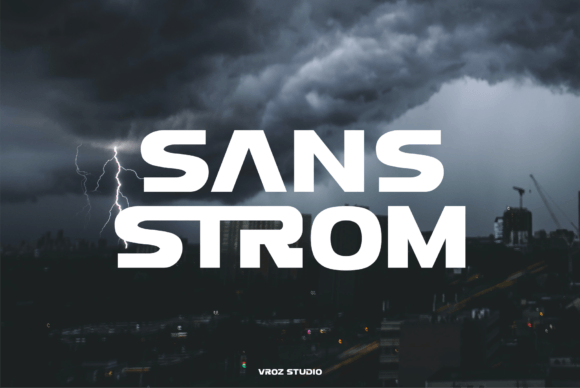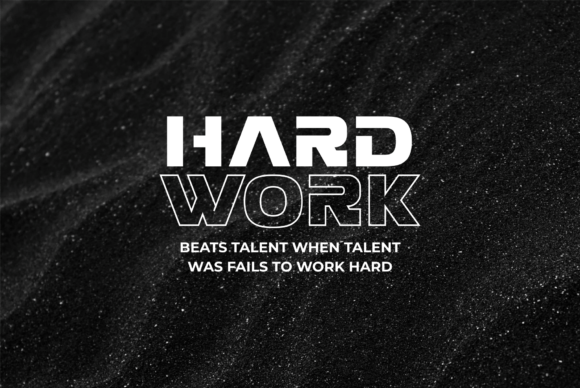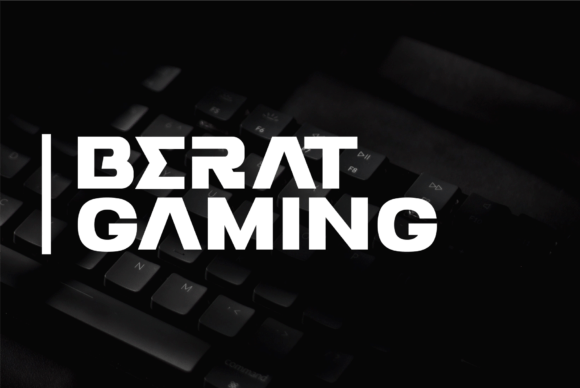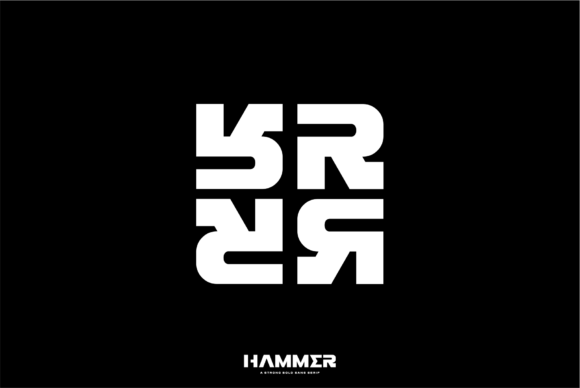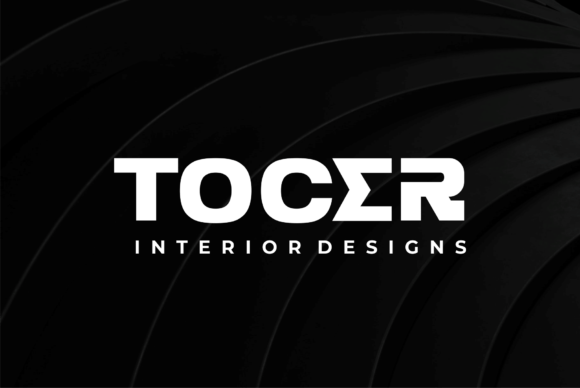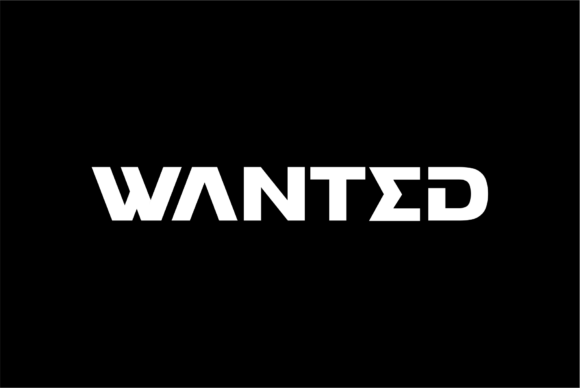
Introducing HAMMER Font: The Ultimate Sans Serif for Bold Projects
Are you a designer or crafter looking for a font that packs a punch? Look no further than HAMMER, a strong and bold sans serif font perfect for a wide range of projects. From fashion and magazines to logos, branding, and advertising, HAMMER is the ideal choice for anyone seeking a font that exudes confidence and energy.
Key Features of HAMMER Font
- Strong and Bold: HAMMER is a robust font that demands attention. Its bold sans serif design makes it perfect for headlines, titles, and emphasis text.
- Versatile: Whether you’re working on a fashion magazine, a sports website, or an esports brand, HAMMER adapts seamlessly to any project.
- Clean and Modern: The font’s clean lines and modern aesthetic ensure it looks great in both digital and print formats.
- Easy to Read: Despite its boldness, HAMMER remains highly legible, making it suitable for body text and longer content.
Use Cases for HAMMER Font
HAMMER’s versatility means it can be used in a wide array of projects, including:
- Fashion: Use HAMMER to create striking headlines and titles for fashion magazines, blogs, and brand campaigns.
- Magazines and Journals: Add a touch of boldness to your publication with HAMMER’s confident sans serif design.
- Logo and Branding: Create a lasting impression with HAMMER, perfect for logos, business cards, and brand guidelines.
- Photography: Use HAMMER to add a professional touch to photo captions, quotes, and titles.
- Quotes and Blog Headers: Make your quotes and blog headers stand out with HAMMER’s bold and eye-catching design.
- Posters and Advertisements: Grab attention with HAMMER’s strong and assertive font style.
- Postcards and Books: Add a modern twist to your postcards and books with HAMMER’s clean and legible design.
- Websites: Use HAMMER to create bold and engaging website headers, titles, and emphasis text.
- Esports and Sport: HAMMER is perfect for esports and sports branding, adding a dynamic and energetic feel to your projects.
Why Choose HAMMER Font?
With so many fonts available, why choose HAMMER? Here are just a few reasons:
- Unique and Memorable: HAMMER’s bold design ensures your project stands out from the crowd.
- Highly Versatile: Use HAMMER across multiple projects and platforms, from digital to print.
- Easy to Pair: HAMMER pairs well with a variety of fonts, making it easy to create a cohesive visual identity.
- Professional and Modern: HAMMER’s clean and modern aesthetic ensures your project looks professional and polished.
In conclusion, HAMMER font is an exceptional choice for designers and crafters seeking a strong, bold, and versatile sans serif font. Its wide range of applications, from fashion and magazines to logos and websites, makes it an ideal addition to any design toolkit. With its clean design, high legibility, and professional aesthetic, HAMMER is sure to elevate your projects and leave a lasting impression.